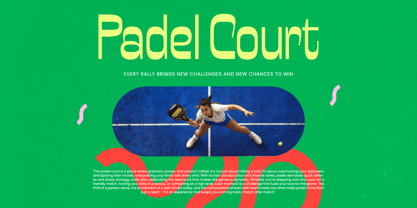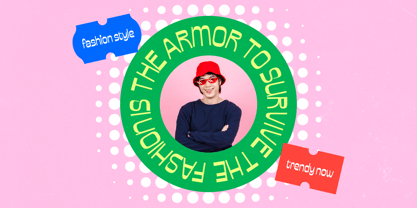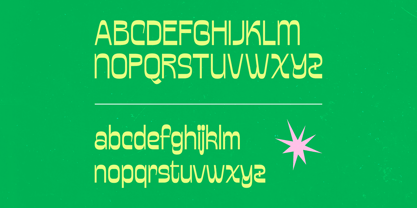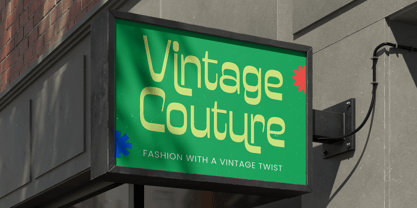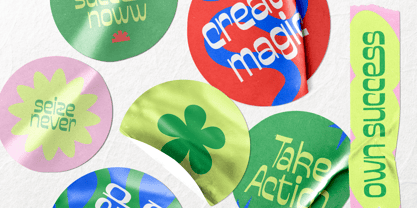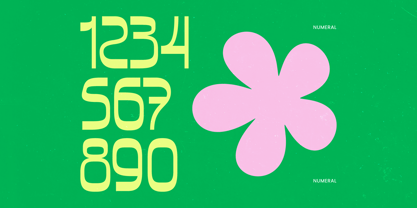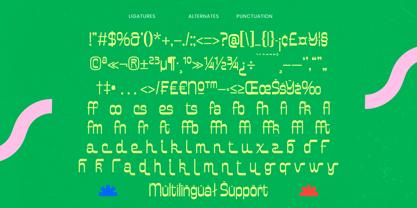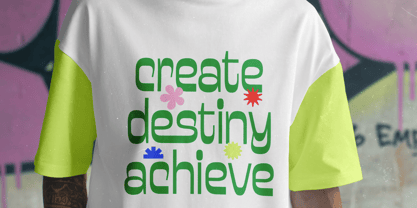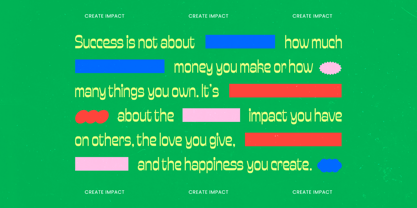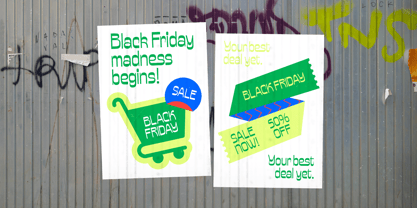
Bonfade Display
by Timelesstype Studio
The Bonfade Display Font Family was designed by Heru Utama Putra and published by Timelesstype Studio. Bonfade Display contains 2 styles and family package options. More about this family
Bonfade Display is a freestyle display font built to stand out with bold personality and playful confidence. Featuring smooth curves, rounded structures, and contemporary proportions, this typeface delivers a fresh and energetic look perfect for modern branding and eye-catching headlines. Its distinctive letterforms create a strong visual presence, making it ideal for posters, packaging, editorial layouts, social media graphics, apparel design, and creative marketing campaigns. With 21 ligatures, 35 alternates, and 386 glyphs, Bonfade Display offers flexible typographic variations while maintaining its clean and expressive character. Designed for creators who want vibrant impact and stylish originality, this font brings dynamic energy to both print and digital projects.